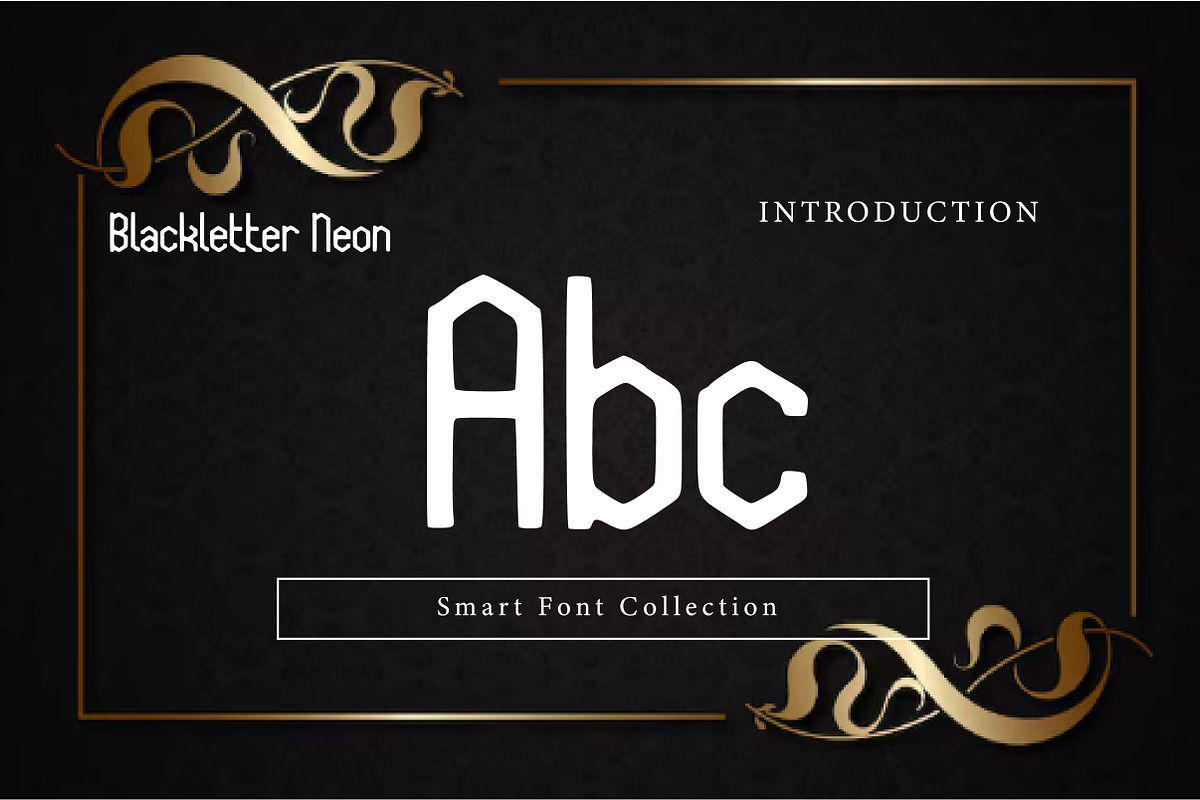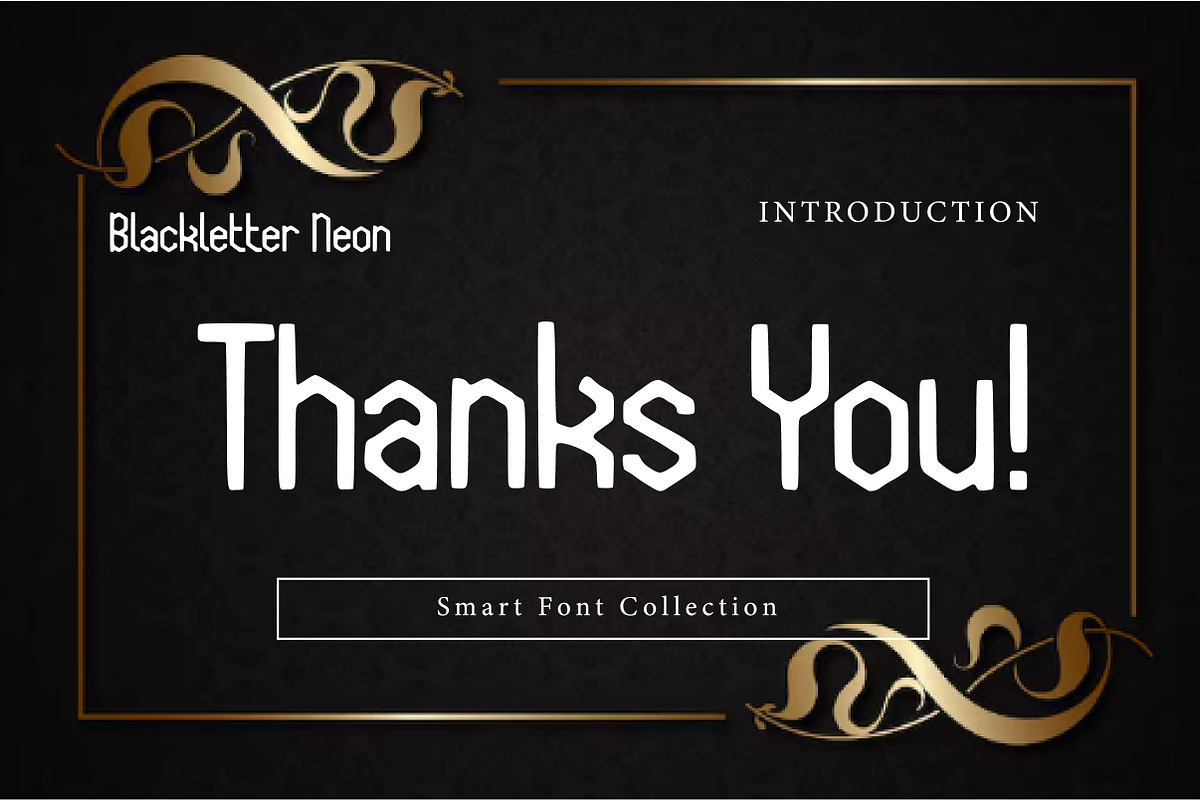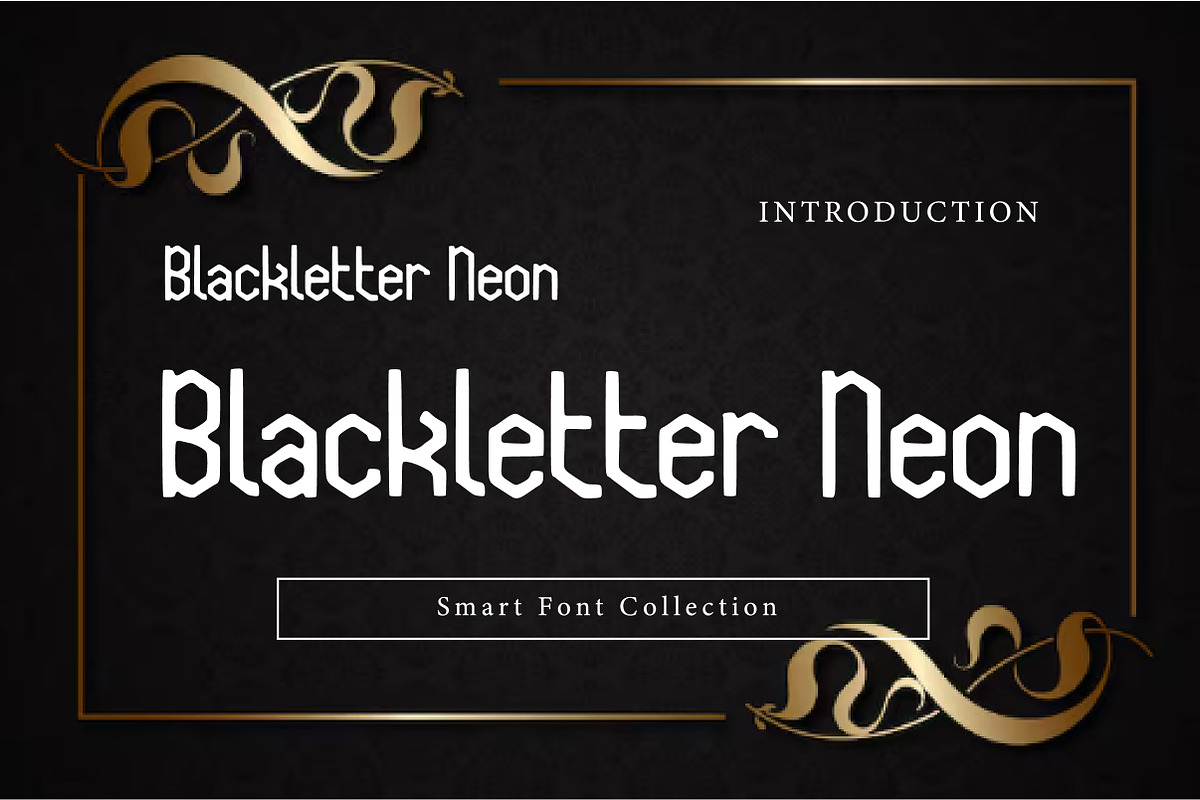
Blackletter neon
Blackletter Neon is a bold and eye-catching display typeface that fuses classic blackletter foundations with a playful, modern neon-style twist. While rooted in gothic and medieval letterforms, it features rounded shapes and simplified strokes that give it a lively, contemporary vibe. This font is perfect for creative branding, posters, headlines, streetwear, album covers, logos, and designs that want to mix old-school gothic attitude with modern, vibrant energy.